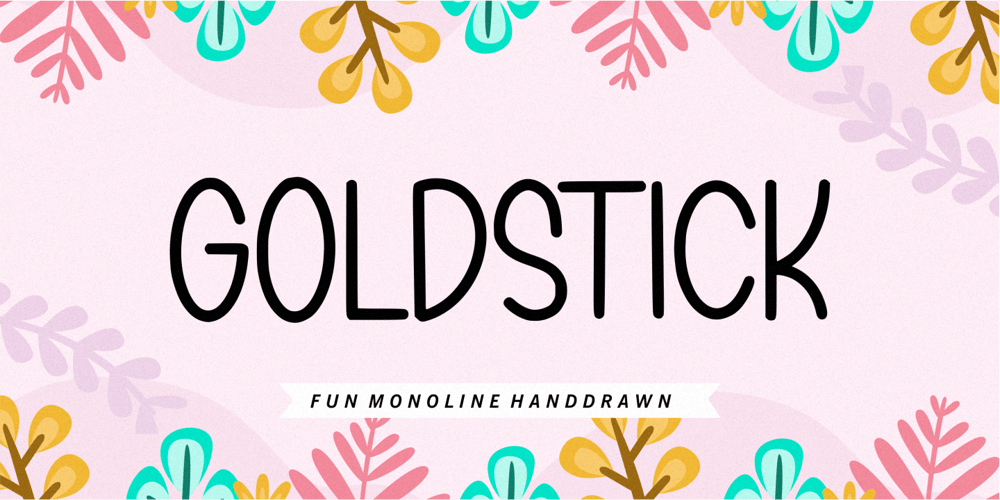
Goldstick Font Family was designed by Restu Angga and published by Balpirick. Goldstick contains 1 styles and family package options. GOLDSTICK is a Fun Monoline Handdrawn Font.GOLDSTICK is perfect for product packaging, branding project, megazine, social media, wedding, or just used to express words above the background.This font includes multilingual support.Enjoy the font, feel free to comment or feedback, send me PM or email.Thank you!